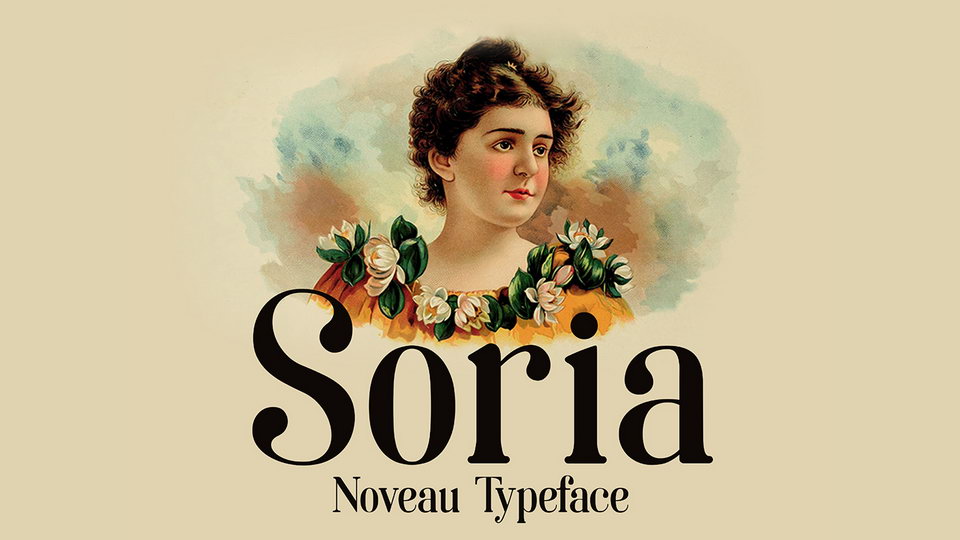
Download Soria font, a gorgeous serif typeface created under art noveau influence and the didot fonts. It’s a modern and actual type that we can use it for display texts, ideal for logos, fashion, branding, magazines and more.